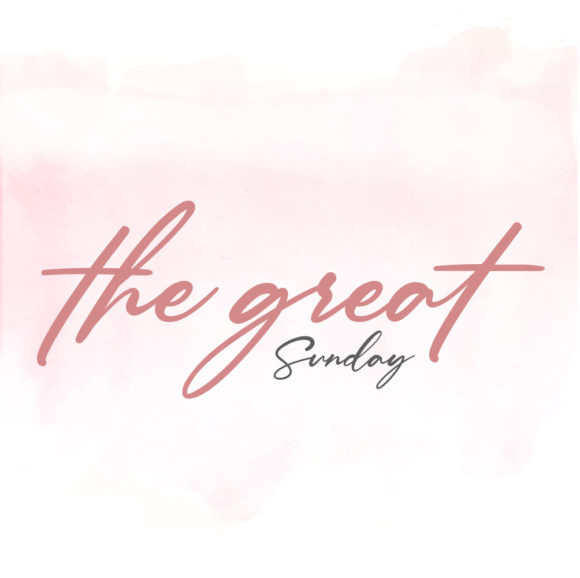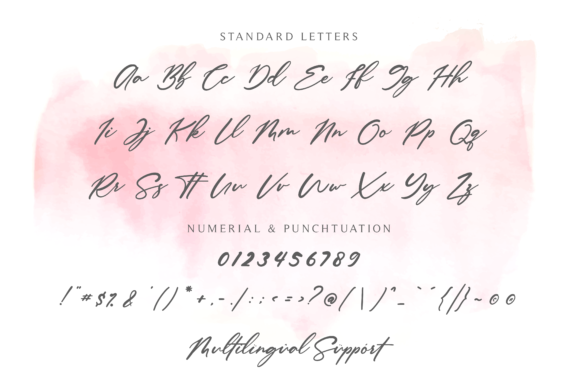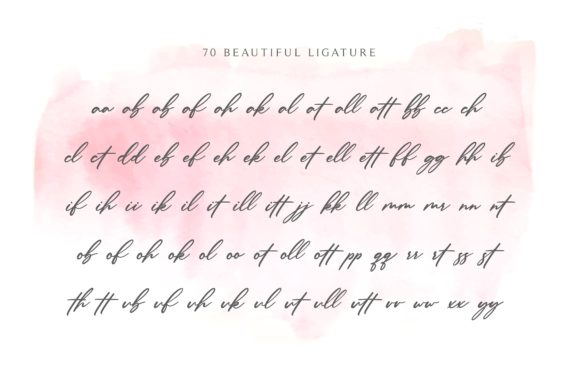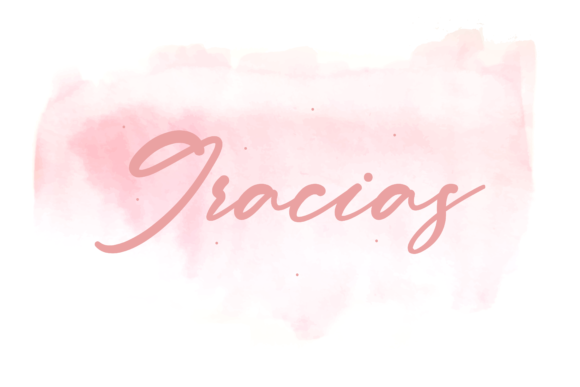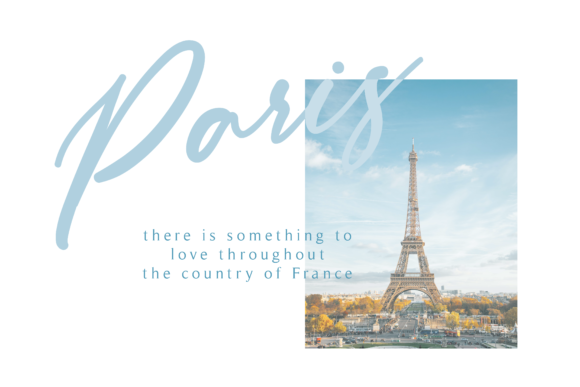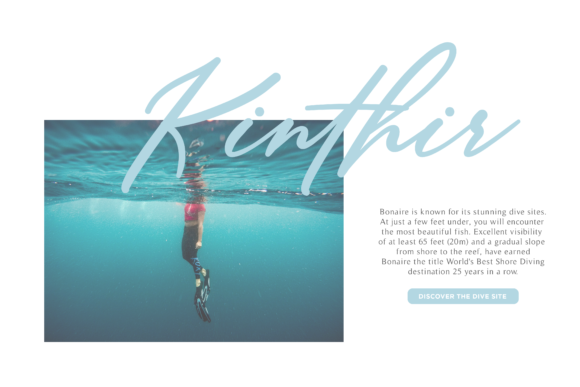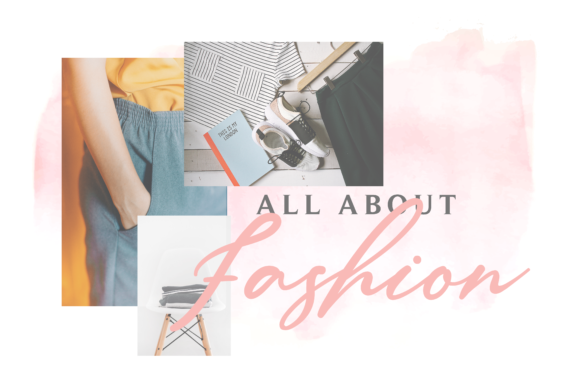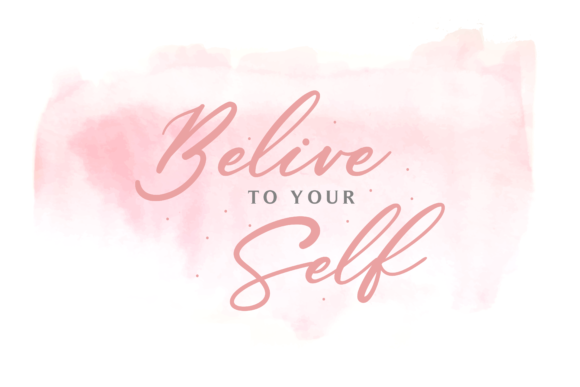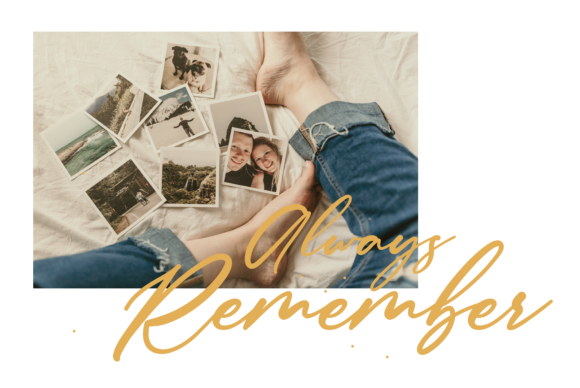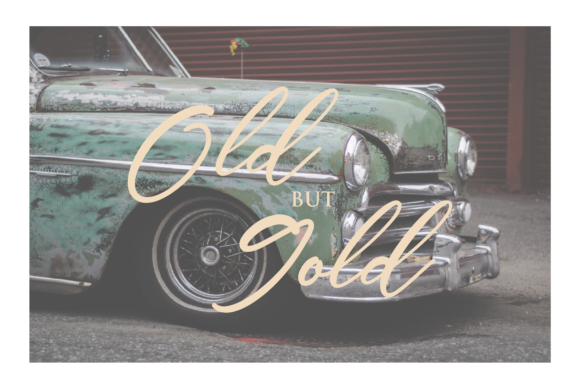
The Great Sunday Font
About The Great Sunday Font
The Great Sunday is an amazing calligraphy font. It was inspired by the beauty of a Sunday morning in a village. Its smooth and beautiful curves are perfect for all sorts of designs.